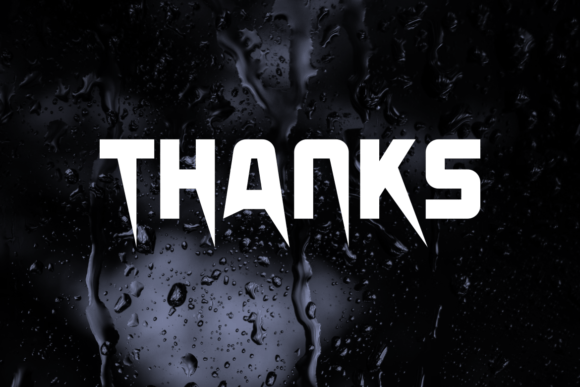
Introduction to Kastink Font
Have you ever been stuck in a design rut, searching for that perfect font to elevate your creative project? You know, that moment when the right font can make all the difference between a good design and a great one? For designers, finding the right font can be a challenge, but what if we told you that there’s a font that can take your designs to the next level? Say hello to Kastink Font, a bold and authentic display font that’s perfect for any branding project.
Whether you’re working on a logo, creating a t-shirt design, or even an esports-themed project, Kastink Font is an outstanding choice. With its high-quality design and transparent background, this font is a valuable resource for designers who want to take their creative projects to the next level. And the best part? You can download it for free, making it an excellent addition to your design toolkit.
Key Features of Kastink Font
- High-quality design resource ideal for creative projects requiring unique and stylish typography.
- Unique characteristics include a bold and modern aesthetic, with intricate details and subtle texture, setting it apart from other fonts.
- Perfect for designers looking for a high-quality, free design resource to elevate their creative project.
Honest Review: Kastink Font
I recently stumbled upon the Kastink Font, a creative project that caught my eye. This free download is a great design resource for those looking for a unique, high-quality font.
Here are some things that work well: ✨ High-quality design, ✨ Unique character set, ✨ Supports both Latin and Cyrillic alphabets, ✨ Compatible with various design software.
However, there are some limitations to consider: ⚠️ Limited language support (only Latin and Cyrillic), ⚠️ No bold or italic styles available.
I was impressed by the Kastink Font’s transparent background, making it easy to integrate into any design project. Overall, I’d recommend this font to anyone looking for a creative solution.
While it may not be perfect, the Kastink Font is a valuable addition to any designer’s toolkit. With its unique design and high-quality feel, it’s definitely worth checking out.
- Unique character set
Getting the Most Out of the Kastink Font
Use the Kastink Font as a design resource for your creative project. Experiment with different font sizes, colors, and styles to create a unique and eye-catching design. You can also use the font in combination with other design elements to enhance your project’s visual appeal.
The Kastink Font is suitable for a variety of creative projects, including digital designs, print materials, and presentations. Use it for headings, titles, and body text to add a touch of elegance and sophistication to your design.
Alternatives to Kastink Font
Fontin is a free, high-quality font that can be used for various creative projects, including logos, graphics, and web design. It features a clean and modern design with a transparent background, making it perfect for backgrounds and overlays. When to use: Use Fontin for designs that require a sophisticated and elegant look. How it compares to Kastink Font: Fontin has a more refined and polished look compared to Kastink Font, which has a more playful and whimsical feel.
Alegreya Sans is a high-quality, sans-serif font that is perfect for creative projects that require a clean and modern look. It features a wide range of weights and styles, making it a great design resource for designers who need a versatile font. When to use: Use Alegreya Sans for designs that require a clean and professional look. How it compares to Kastink Font: Alegreya Sans has a more modern and sleek look compared to Kastink Font, which has a more traditional and vintage feel.